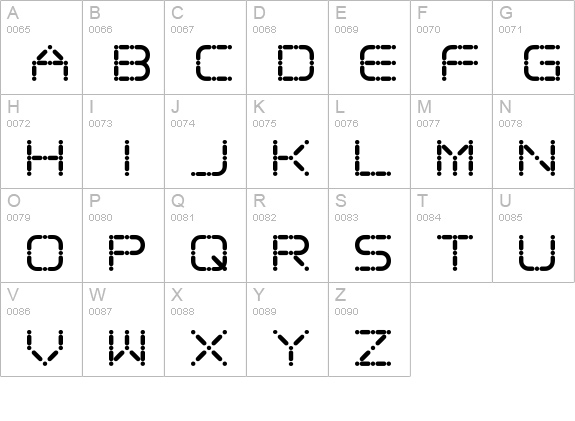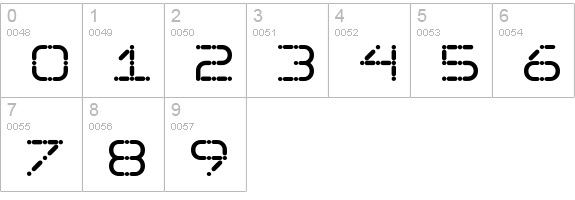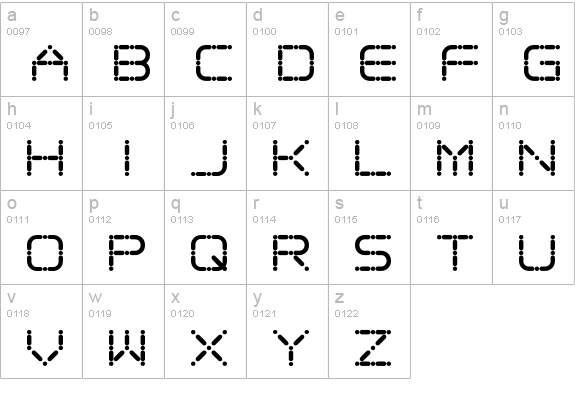
Ego trip Font Details
Ego Trip font is a modern and stylish typeface that exudes confidence and sophistication. With its bold lines and sleek curves, this font is perfect for making a statement in any design project. Whether you're creating a logo, poster, or website, Ego Trip will help you stand out from the crowd. Best of all, Ego Trip font is available for free download at FontsMarket.com. That's right, you can add this eye-catching font to your collection without spending a dime. Don't miss out on the opportunity to elevate your designs with the striking presence of Ego Trip font. Download it today and let your creativity soar!